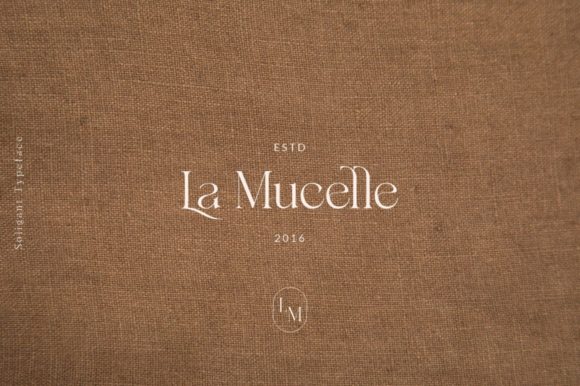
Soligant Font
Soligant is a modern and classy serif font. It is PUA encoded which means you can access all of the glyphs and swashes with ease!
Fall in love with its incredibly versatile style and use it to create spectacular designs!